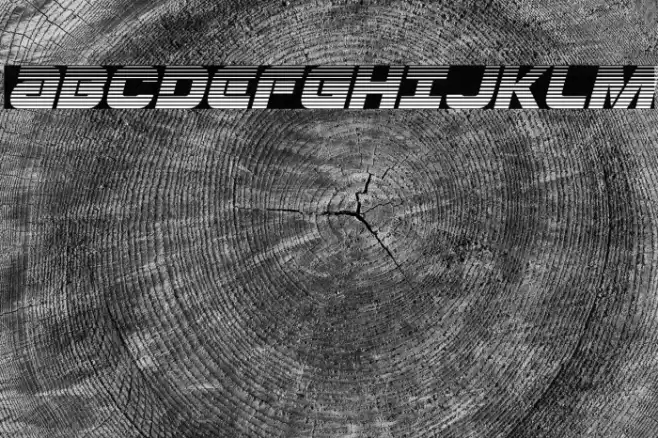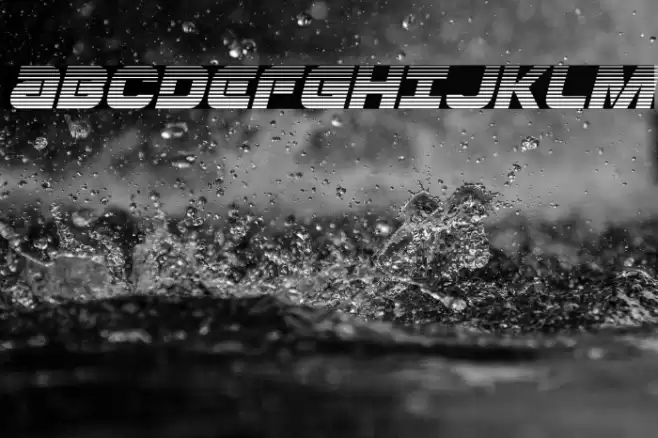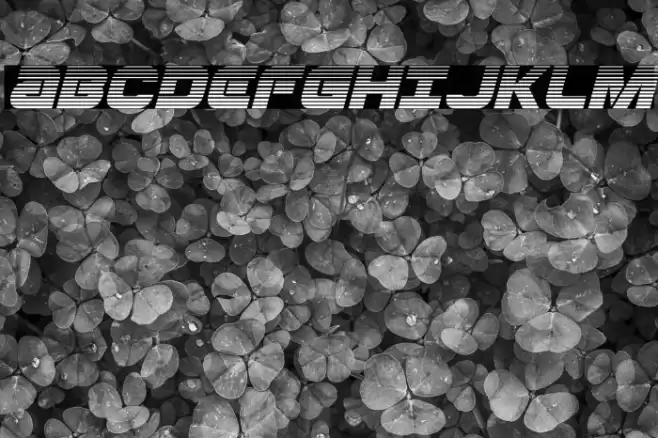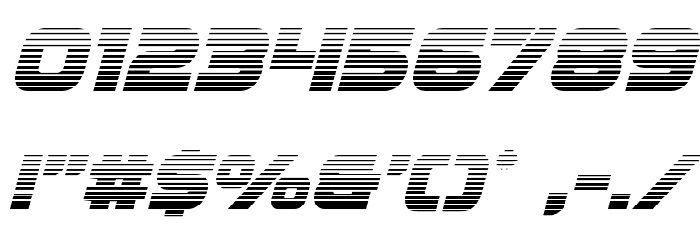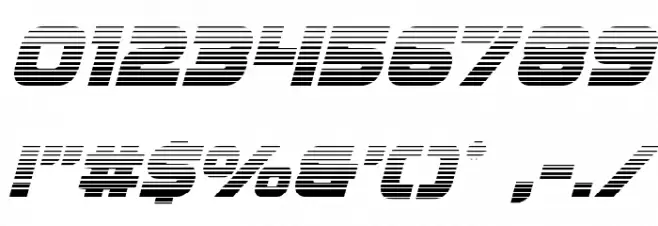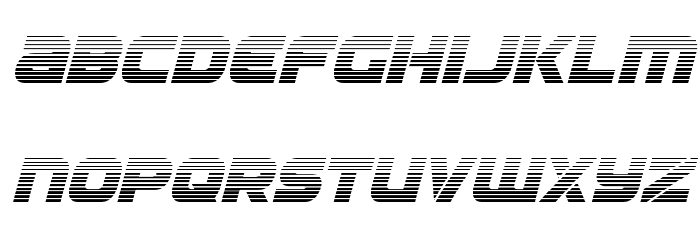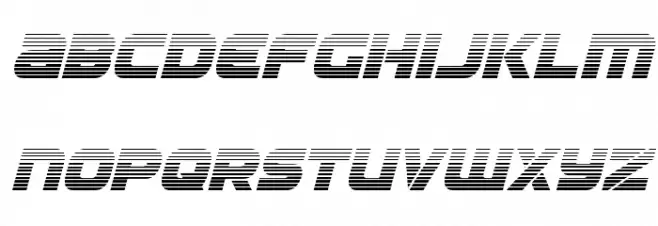
Ozda Gradient Italic Font
Ozda Gradient Italic Description
This font features a dynamic and modern design with a gradient effect that gives it a sense of motion and depth. The characters are italicized, adding to the sleek and futuristic appearance. Each letter is composed of horizontal lines that create a striped pattern, enhancing the visual interest and making it stand out. The font maintains a consistent slant across all characters, providing a cohesive look. The boldness of the strokes ensures readability while the gradient style adds a unique flair. This font is ideal for projects that require a contemporary and eye-catching aesthetic.
A modern, italicized font with a gradient effect and striped pattern from Uncategorized fonts.
- Font: Ozda Gradient Italic
- Proposed Projects: Ideal for branding, advertising, posters, and digital media where a modern and dynamic look is desired.